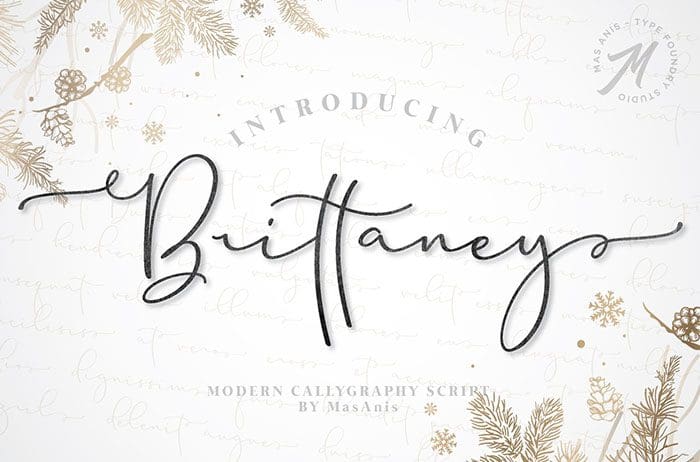
Free Brittaney Script Font
Brittaney Script Font
Free Brittaney is a modern and elegant script font. It includes a lot of stylistic alternates to make an amazing design. Designed this font by Mas Anis. You can also search more freeĀ Script Fonts.